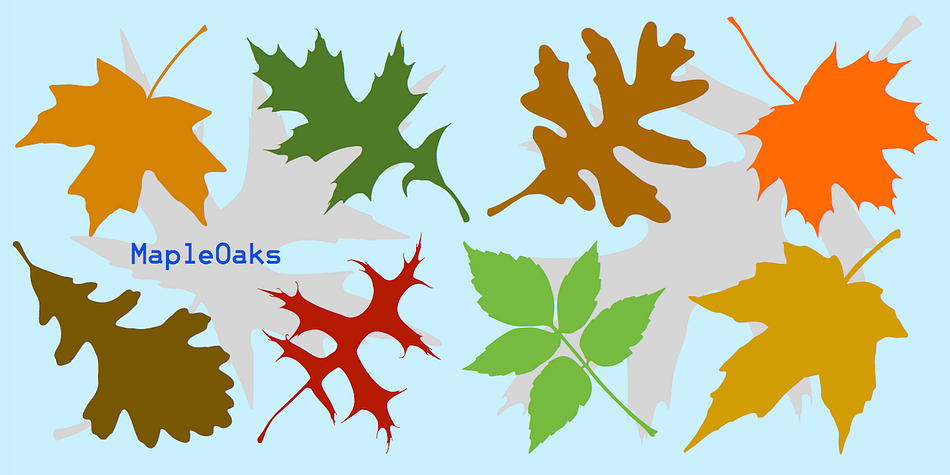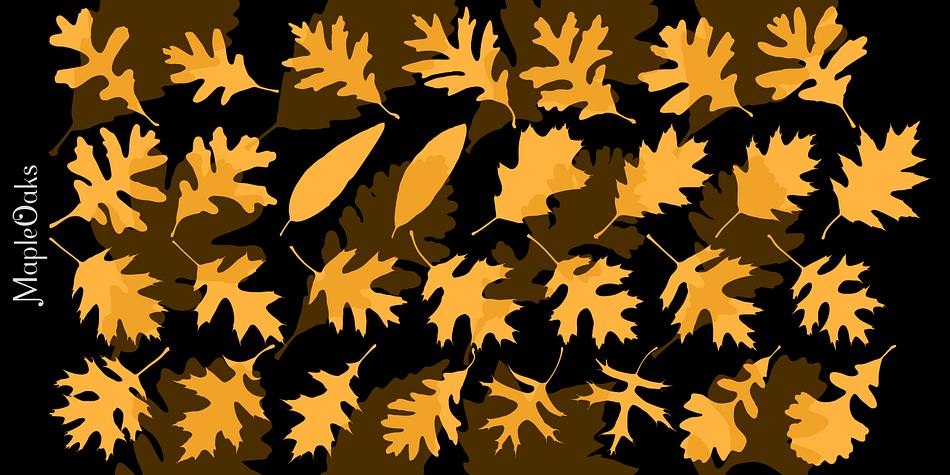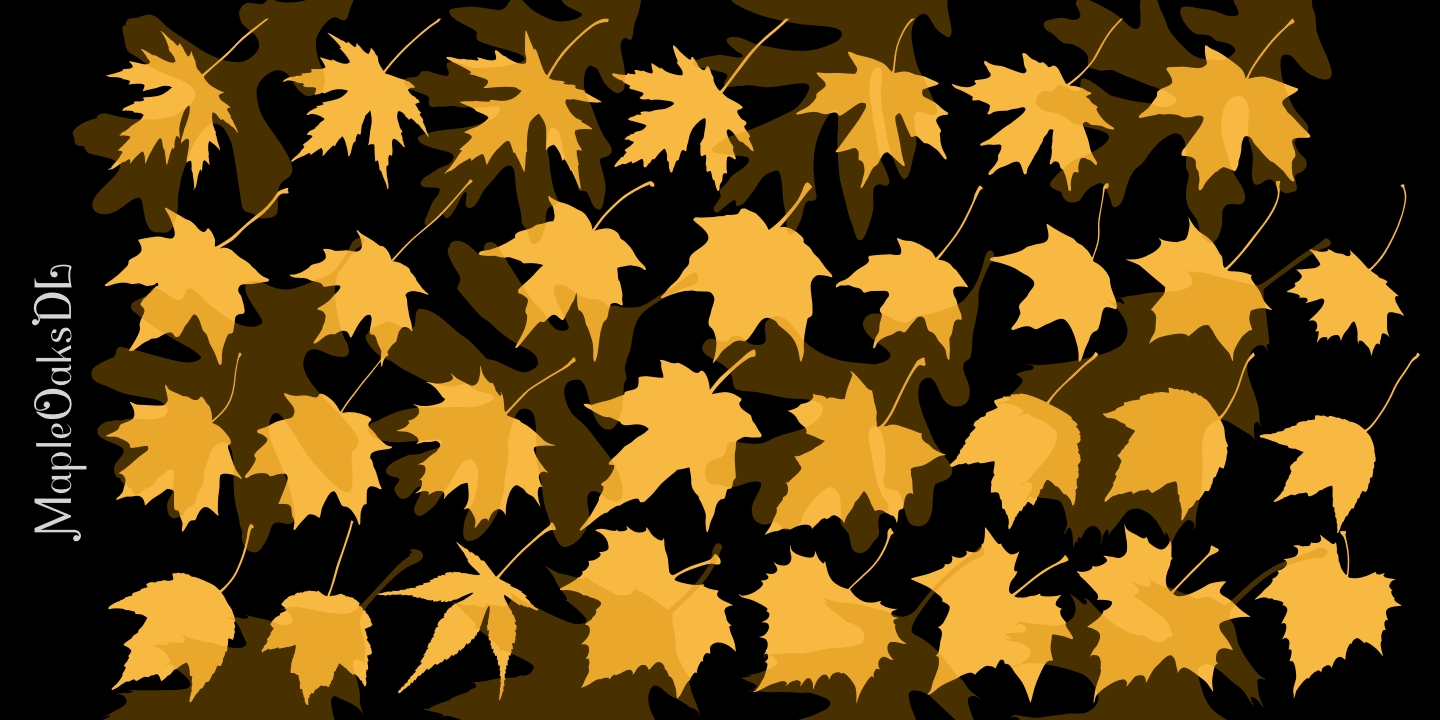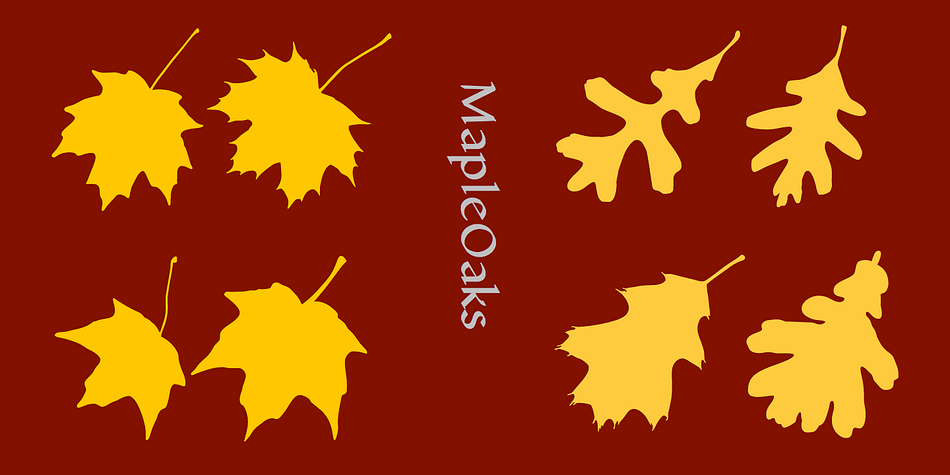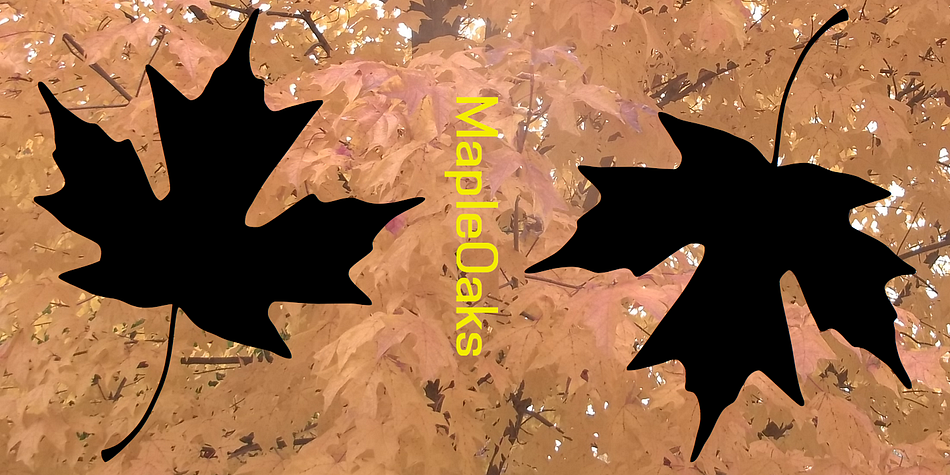
Designed by Robert Schenk, MapleOaks is a dingbat font family. This typeface has four styles and was published by Ingrimayne Type.
In the early days of PostScript fonts, I designed a font of leaves called XLeafMeAlone. In 2006 I decided to revisit this topic and the result was two sets of new leaf fonts: MapleOaks and MoreLeaves.
MapleOaks contains almost 100 images of maple, oak, and sycamore leaves, and MoreLeaves has almost 100 images of leaves of various other species. There are four MapleOak fonts. They have identical images; only the orientation of the images is different. In MapleOaksUR the tips of the leaves point to the upper right, in MapleOaksDR the tips point down to the right, etc.